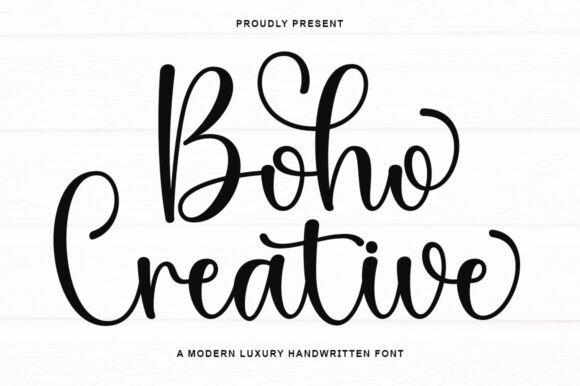
The Boho Creative Font: A Timeless Choice for Designers and Crafters
I’ll never forget the design project that led me to discover the Boho Creative font. I was working on a branding project for a small business, and I was struggling to find the perfect font to capture their eclectic and artistic vibe. That’s when I stumbled upon Boho Creative, a lovely and timeless handwritten font that instantly resonated with me. In this article, I’ll share my experience with Boho Creative, its features, and how to make the most of it in your designs.
An Honest Review of Boho Creative
So, what makes Boho Creative special? Here are some things I love about this font:
- ✨ Unique and beautiful touch: Every letter has a distinct character that adds a personal touch to your designs.
- ✅ Versatile: Boho Creative is perfect for creating eye-catching logos, branding, and quotes.
- ✨ Handwritten feel: The font has a warm, organic feel that makes it perfect for designs that require a personal touch.
Of course, no font is perfect, and Boho Creative has a few quirks:
- ⚠️ Limited use in formal designs: Boho Creative is best suited for creative and artistic projects. It may not be the best choice for formal or corporate designs.
- 🤔 Some letters may require adjustment: Depending on the design, some letters may need to be adjusted to ensure proper spacing and alignment.
A Practical Guide to Using Boho Creative
The Story Behind Boho Creative
Boho Creative was designed with the creative community in mind. The font’s creator wanted to craft a font that would capture the essence of bohemian style, with its eclectic mix of artistic and free-spirited elements. The result is a font that’s both timeless and trendy, perfect for designers and crafters who want to add a personal touch to their work.
| Font Name | Boho Creative Font |
| Author | Diorde Studio |
| What is Boho Creative font best used for? | Boho Creative is best used for creative and artistic projects, such as logos, branding, and quotes. |
| Does Boho Creative support OpenType features? | Yes, Boho Creative supports OpenType features, such as ligatures, stylistic alternates, and glyphs. |